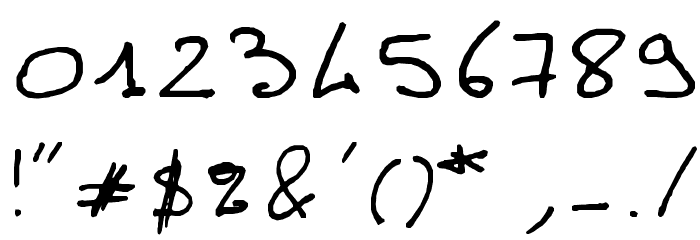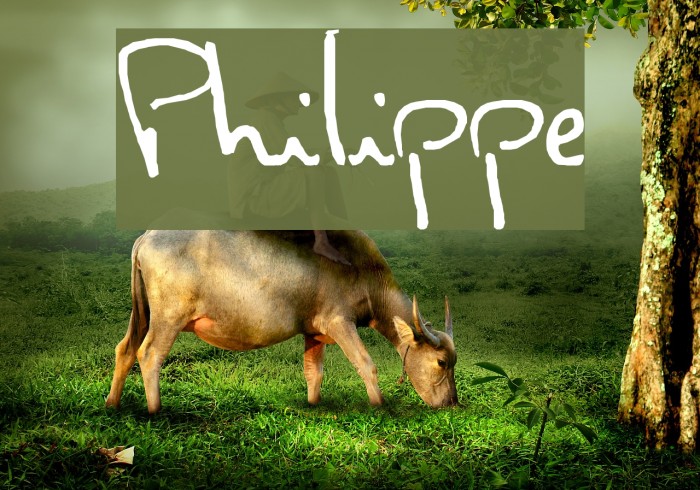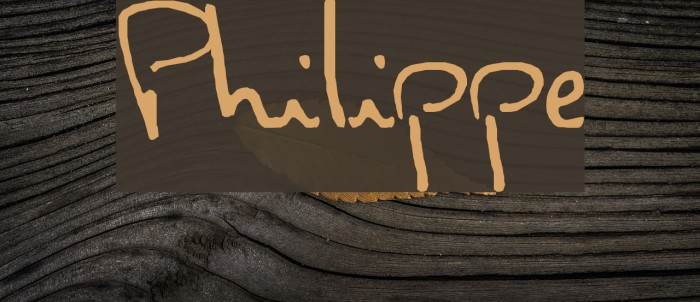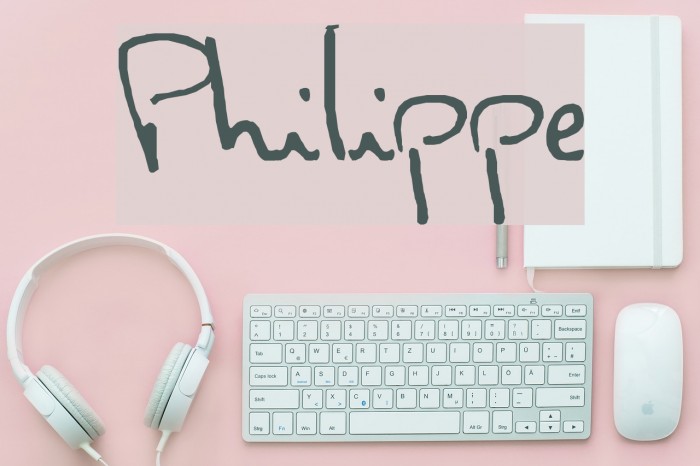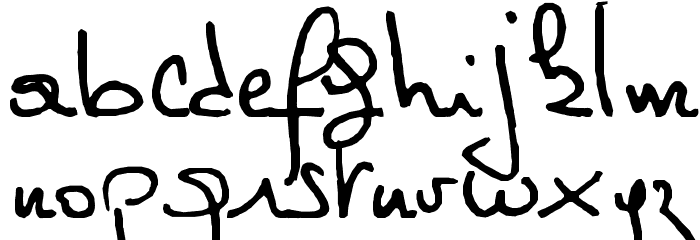
Philippe Font
Philippe Description
This font exudes a casual, handwritten style with a playful and informal character. The letters are crafted with a fluid, freeform stroke that mimics natural handwriting, giving it a personal and approachable feel. The uppercase and lowercase letters maintain a consistent style, with some letters featuring unique loops and curves that add to its charm. The numbers and special characters follow the same handwritten aesthetic, ensuring a cohesive look across all glyphs. This font is ideal for projects that require a touch of personality and warmth, such as personal invitations, greeting cards, or creative branding materials.
| Overall Style | Casual, Playful |
| Use Case | Headlines, Informal text, Creative projects |
| Proposed Projects | Ideal for personal invitations, greeting cards, creative branding, and informal communication. |